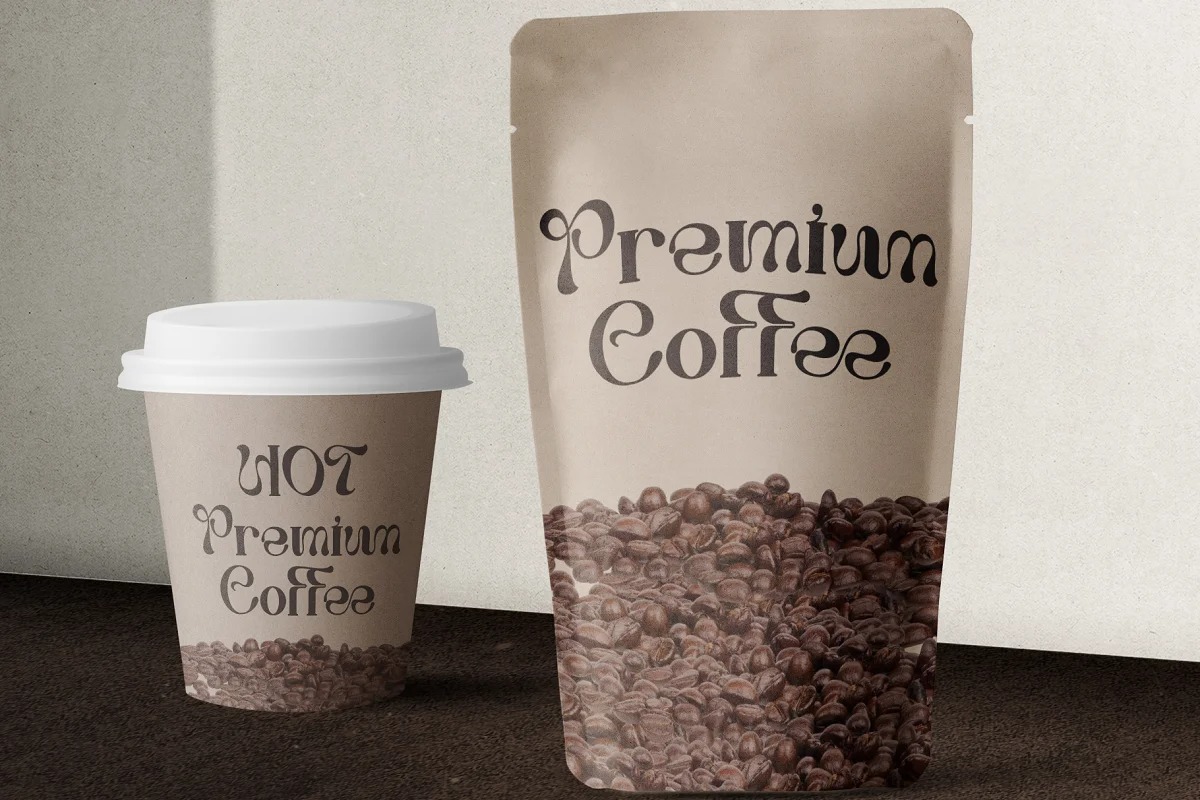
Great Warrior Serif Font is a curvy display serif with unusual letterforms that flow together effortlessly. This font is suitable for many projects, for modern or even retro vintage design, branding, crafting, sticker, sublimation, wedding invitation, advertising, vintage mood boards, logotype, packaging, titles, editorial design, and many more. This font is PUA encoded, which means you can easily access all of the glyphs and washes!